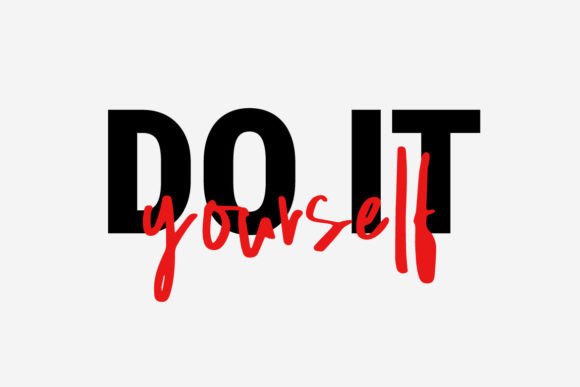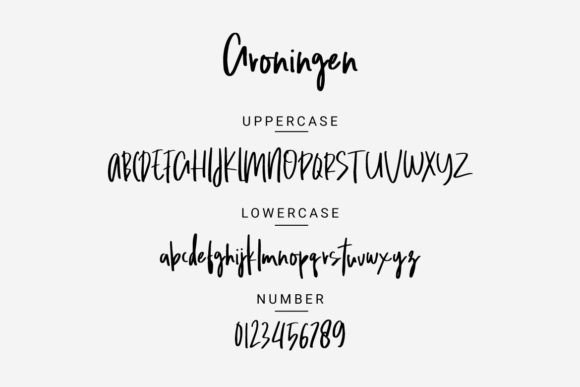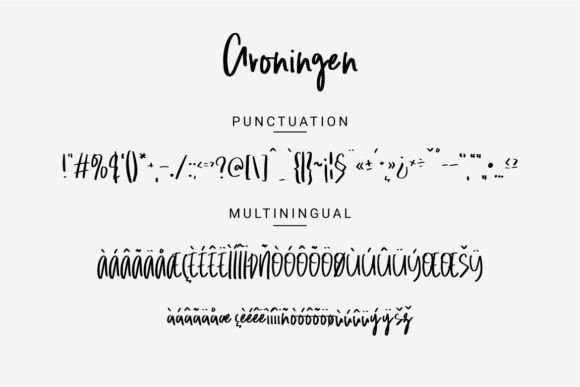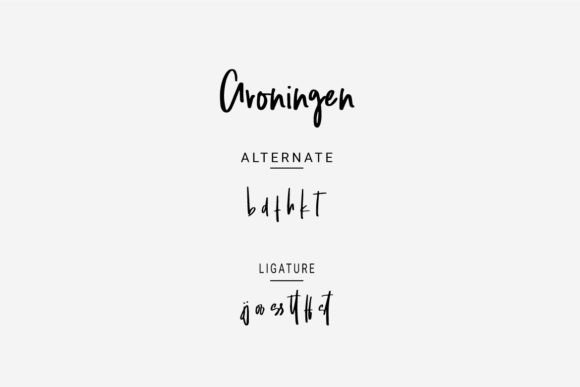
Groningen Font: A Charming Handwritten Font for Your Design Needs
In the world of typography, a font can make or break a design project. When it comes to adding a personal touch to logos, branding, invitations, and other creative endeavors, the right font can elevate the entire aesthetic. This is where the Groningen font comes in – a charming, natural handwritten font that exudes warmth and personality.
The Characteristics of Groningen Font
Groningen font is characterized by its organic, flowing strokes that give it a casual, inviting feel. The font’s natural, handwritten style makes it perfect for designers and crafters looking to add a friendly and approachable touch to their projects. The flowing strokes also give the font a sense of movement and fluidity, making it ideal for designs that require a sense of dynamism.
Versatility of Groningen Font
One of the standout features of the Groningen font is its versatility. The font is suitable for both digital and print applications, making it a valuable addition to any designer’s toolkit. Whether you’re working on a logo, branding project, invitation, or any other design endeavor, Groningen font can be used to create a cohesive and visually appealing aesthetic.
Perfect for Adding a Personal Touch
Groningen font is perfect for designers and crafters who want to add a personal touch to their projects. The font’s handwritten style gives it a unique, human feel that can help to establish a connection with the target audience. By using Groningen font, designers can create designs that feel more approachable, friendly, and inviting.
Applications of Groningen Font
Groningen font can be used in a wide range of design applications, including:
- Logos and branding: Groningen font can be used to create a unique and memorable logo that reflects the personality of a brand.
- Invitations: The font’s handwritten style makes it perfect for invitations, such as wedding invitations, birthday invitations, and other social events.
- Digital designs: Groningen font can be used in digital designs, such as social media graphics, email newsletters, and website headers.
- Print designs: The font is also suitable for print designs, such as brochures, flyers, and posters.
Why Choose Groningen Font?
There are many fonts available to designers and crafters, but Groningen font stands out for several reasons:
- Unique style: Groningen font has a unique, handwritten style that sets it apart from other fonts.
- Versatility: The font is suitable for both digital and print applications.
- Easy to read: Despite its handwritten style, Groningen font is easy to read, making it perfect for designs that require a clear and concise message.
Tips for Using Groningen Font
Here are some tips for using Groningen font in your design projects:
- Use it sparingly: Groningen font is best used sparingly, as a headline or title font, to add a personal touch to your design.
- Pair it with other fonts: The font can be paired with other fonts to create a unique and visually appealing aesthetic.
- Experiment with colors: Groningen font can be used with a range of colors, from bold and bright to soft and pastel.
| Font Name | Groningen Font |
| Author | Fallengraphic |
Groningen font is a charming, natural handwritten font that exudes warmth and personality. Its organic, flowing strokes give it a casual, inviting feel that’s perfect for adding a personal touch to logos, branding, invitations, and any design project that requires a friendly and approachable aesthetic. With its versatility, unique style, and ease of use, Groningen font is a valuable addition to any designer’s toolkit.